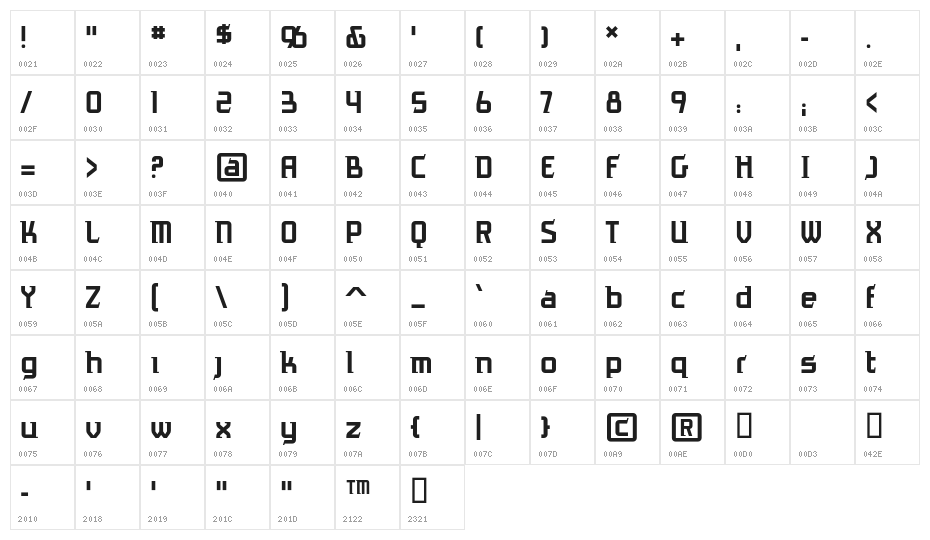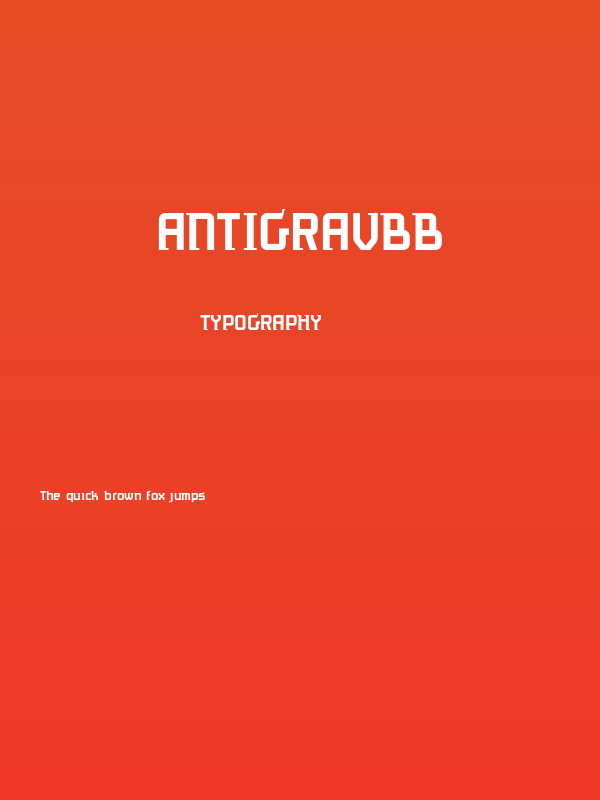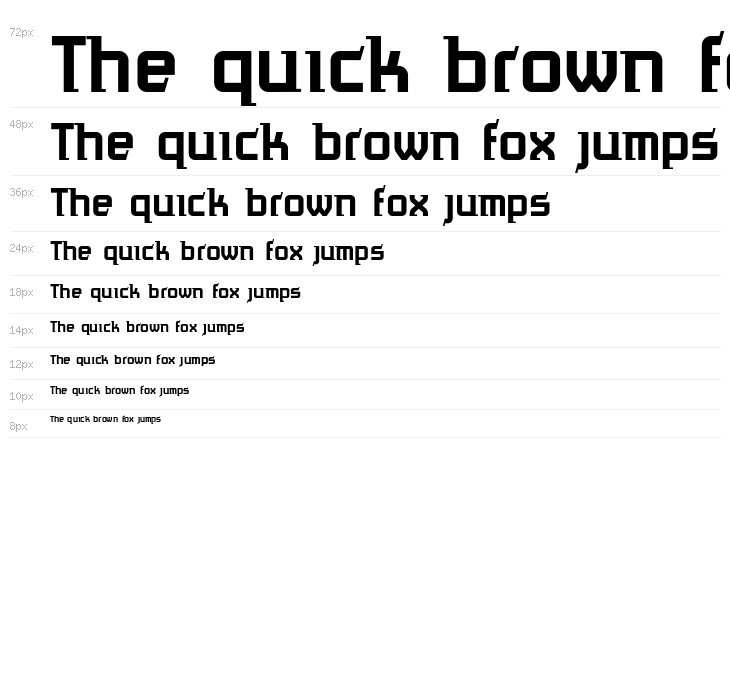
AntigravBB Font
AntigravBB Description
This font features a bold, futuristic design with a strong geometric structure. The characters are distinctly angular, with sharp edges and a consistent stroke width that gives it a modern, tech-inspired appearance. The uppercase letters are particularly striking, with a uniform height and width that create a cohesive look. The lowercase letters maintain the same angular style, ensuring readability while adding a unique flair. Numbers and special characters follow the same design principles, making them easily recognizable and visually appealing. This font's boldness and distinct style make it suitable for a variety of creative projects.
| Proposed Projects | Ideal for technology branding, video game titles, sci-fi book covers, and modern posters. |